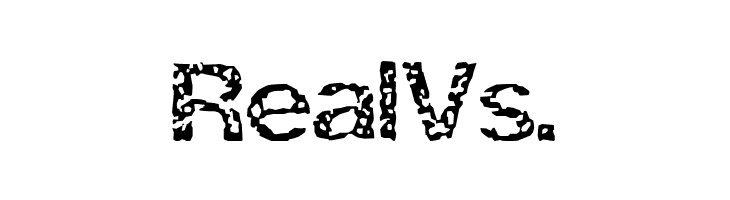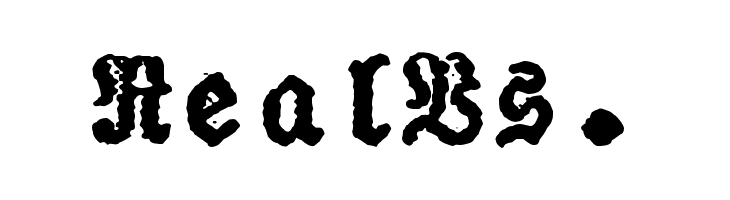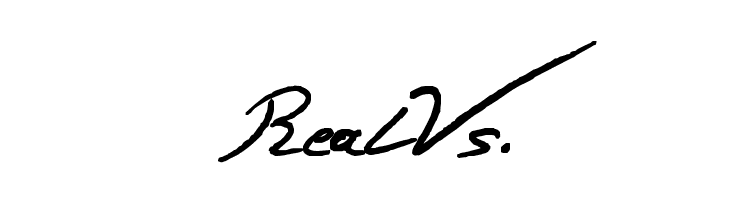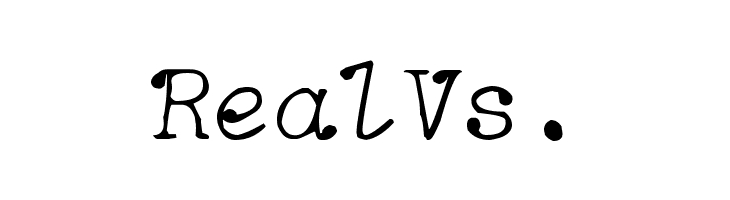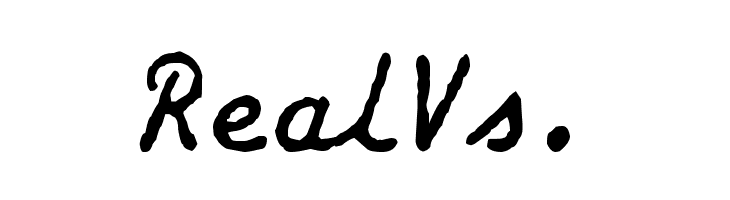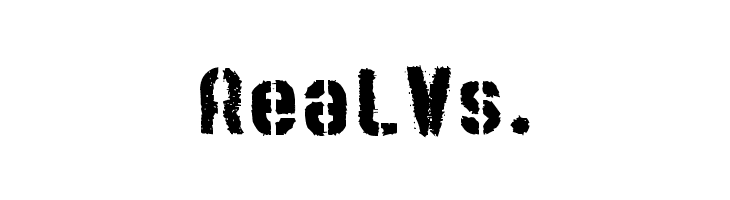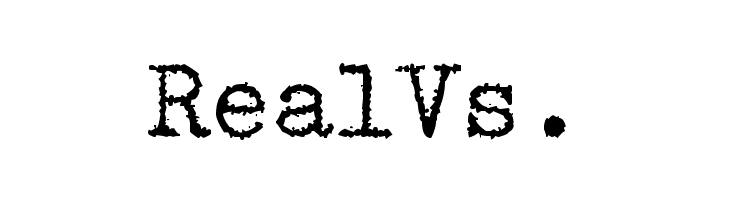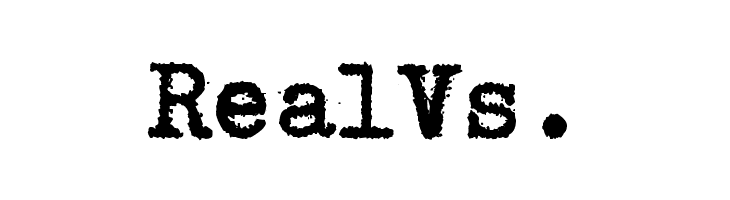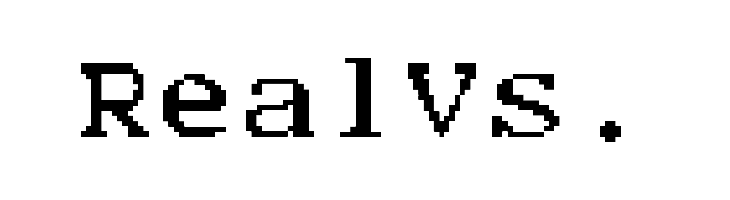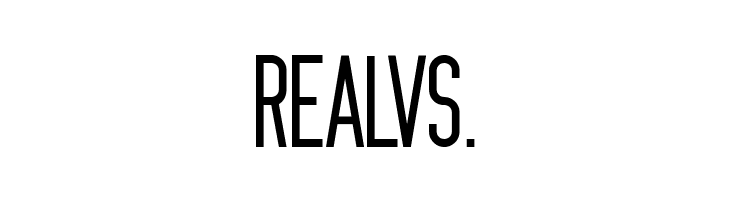
A vintage typewriter-style font with a handwritten, authentic feel.
A charming, italic typewriter-style font with a handwritten feel.
A bold, distressed font with a vintage, industrial stamp-like appearance.
A bold, hand-painted style font with a textured, dynamic appearance.
A thin, handwritten font with a playful and dynamic style.
A bold, textured font with a torn paper effect.
A classic serif font with a vintage touch, featuring sharp serifs and balanced letterforms.
A vintage, distressed typewriter-style font with a rugged, monospaced design.
A bold, textured typewriter-style font with a vintage, distressed look.
A bold, decorative typewriter-style font with vintage and gothic influences.
A lively, cursive script font with fluid, interconnected strokes.
A geometric, modern font with a squarish design and consistent structure.
A bold, geometric font with a squarish design, ideal for modern and impactful projects.
A geometric, hairline font with squared edges and a modern, minimalistic style.
A modern, squarish font with a light weight and geometric structure.
A playful, hand-drawn font with bold, wavy outlines and a whimsical style.
A quirky, spooky display font with tall, uneven letterforms.
A tall, narrow font with a modern and sleek appearance.
A tall, condensed font with consistent stroke thickness and a modern, minimalist style.
A bold, angular font with a unique zigzag pattern for dynamic visual impact.